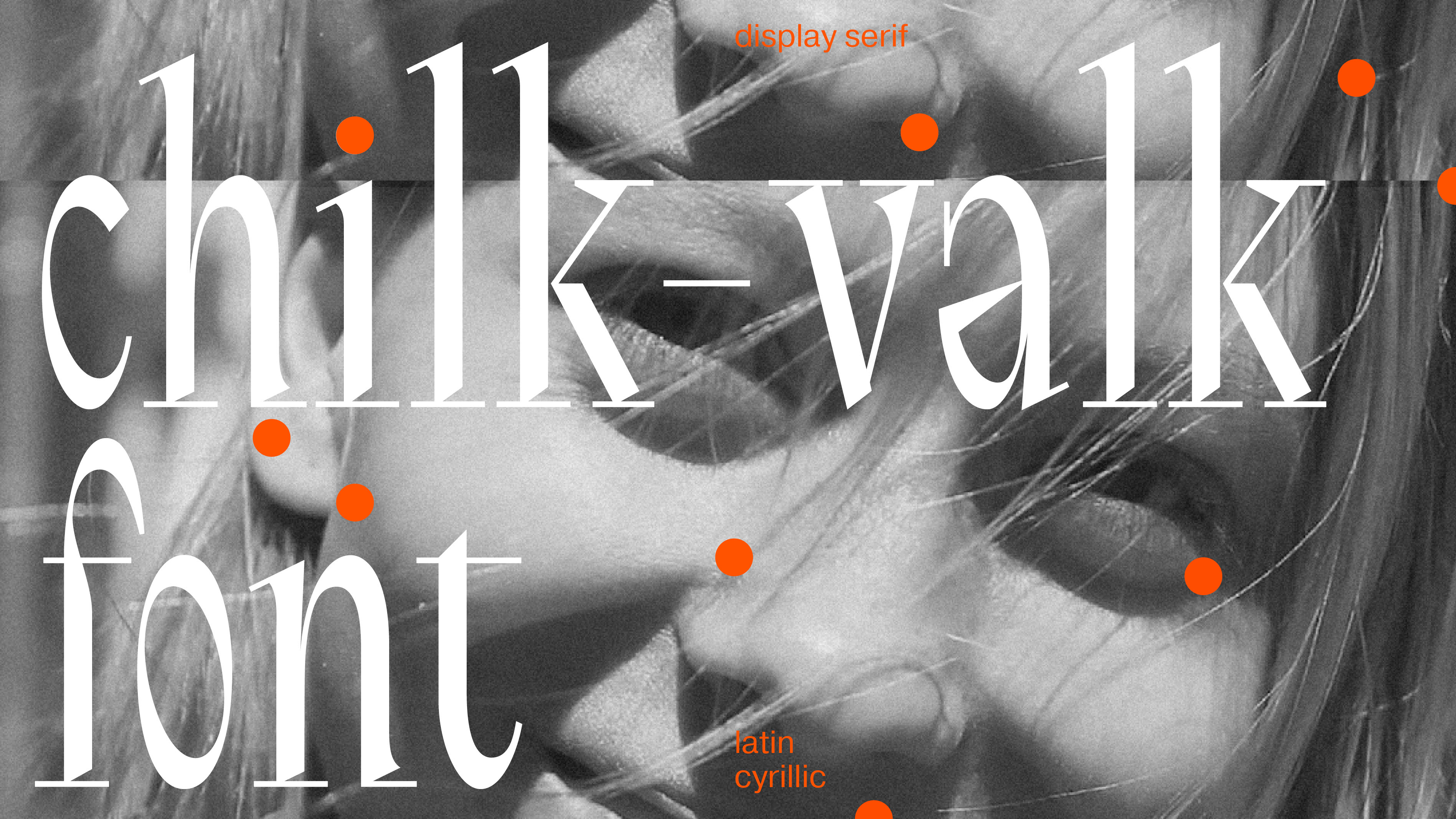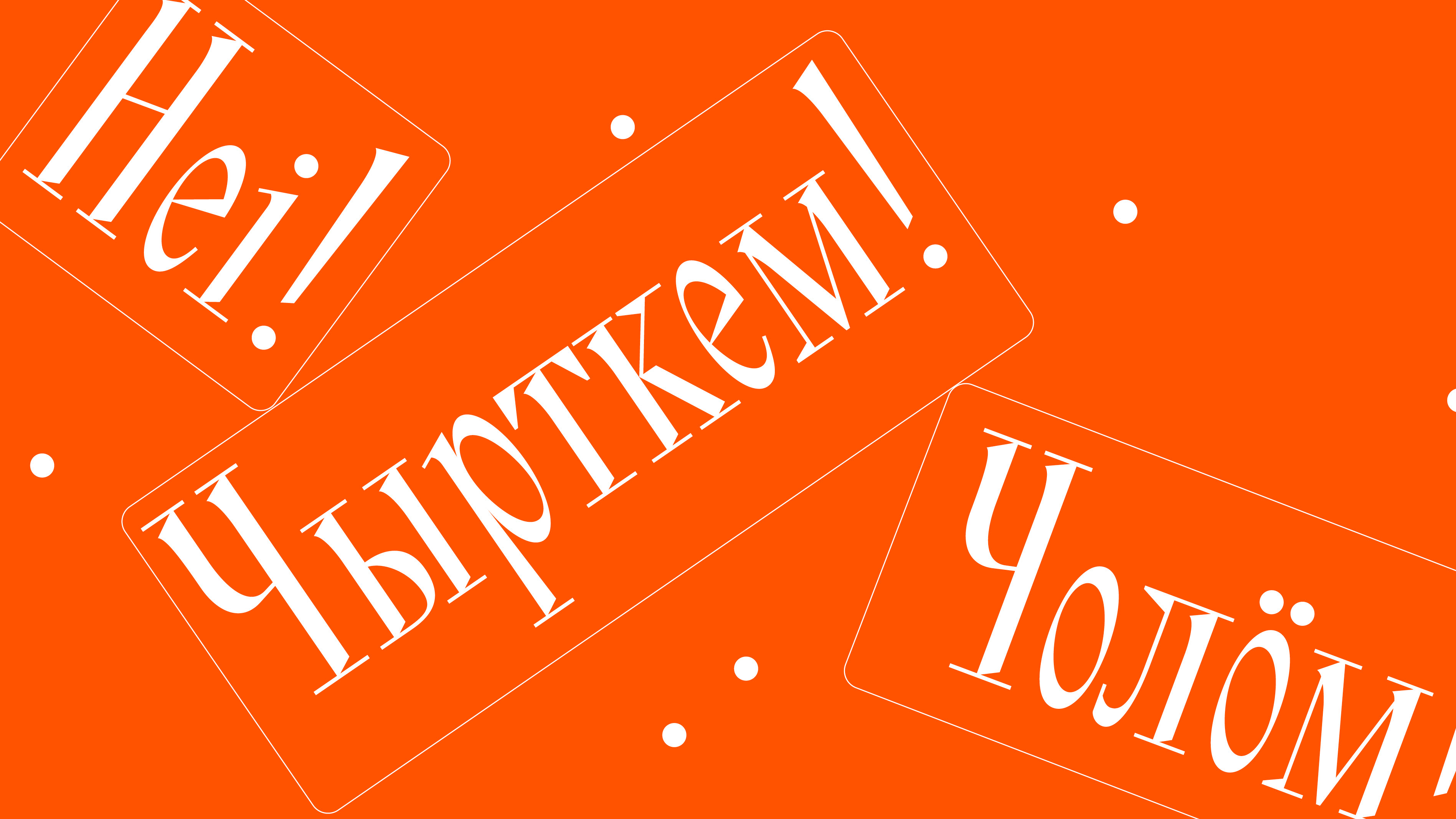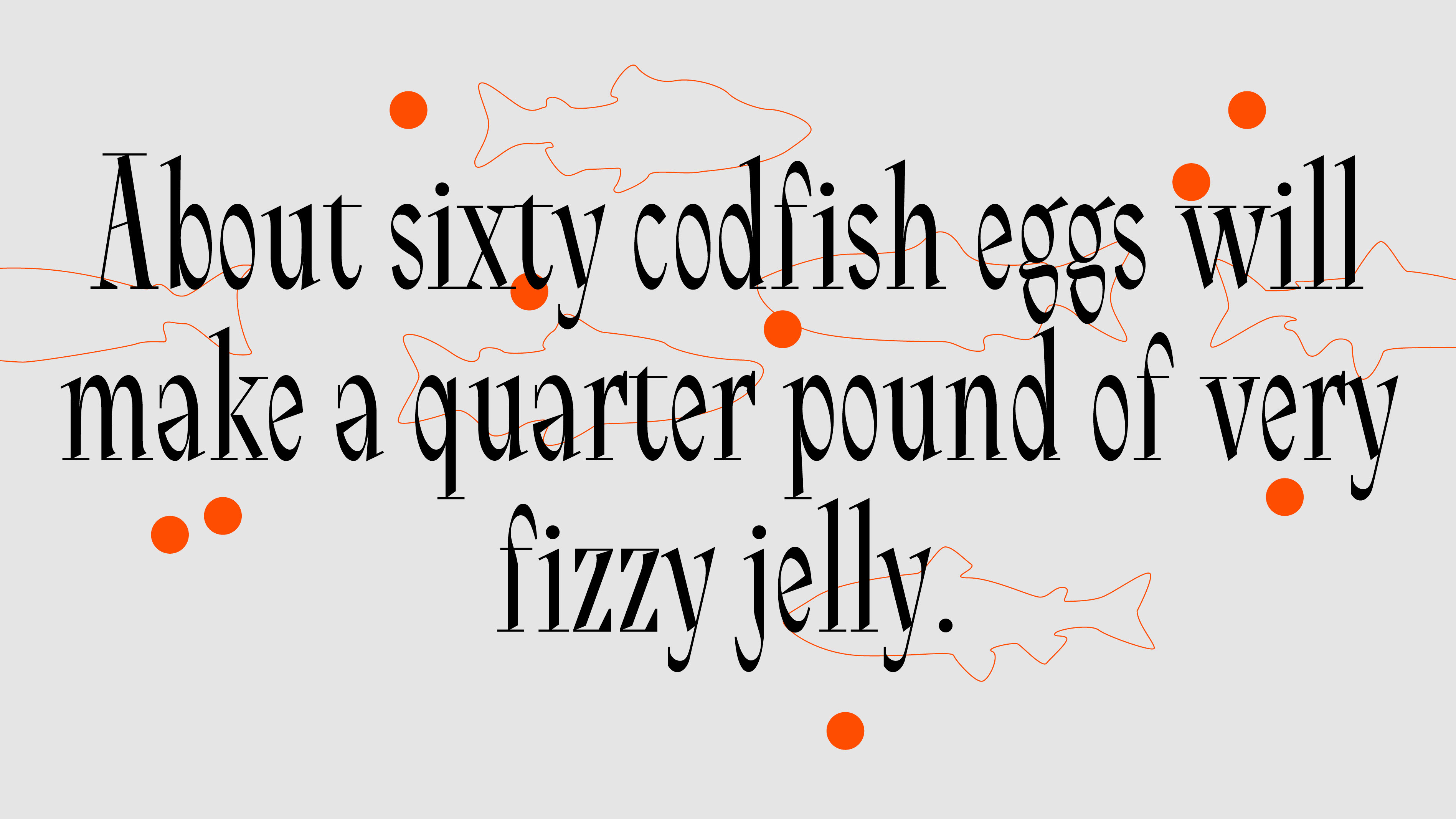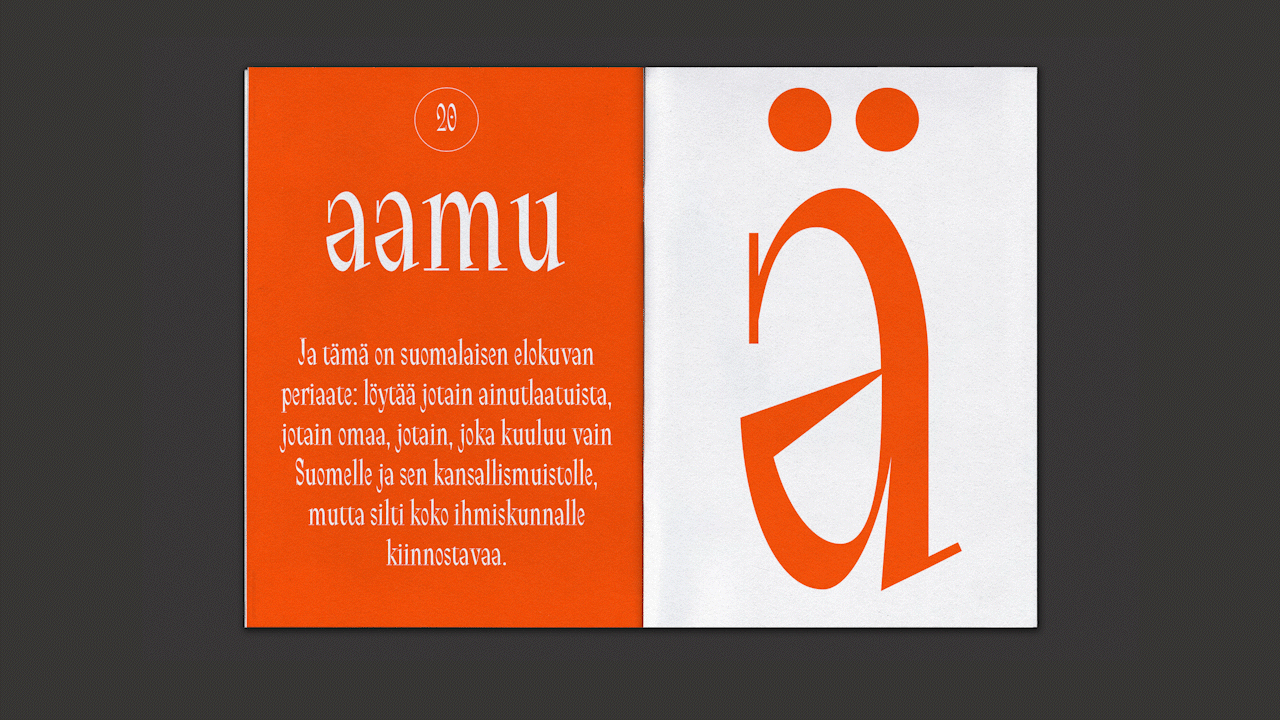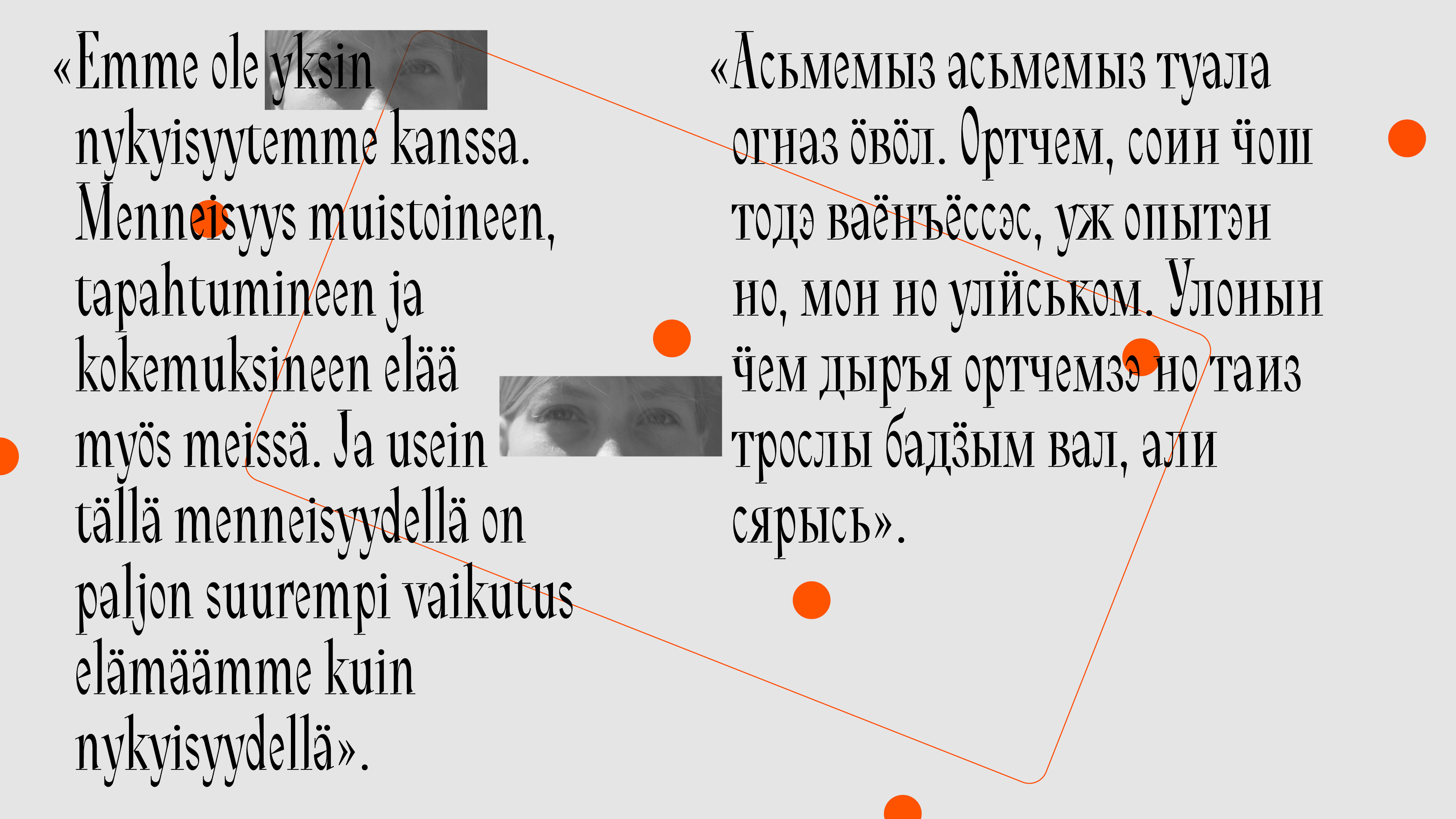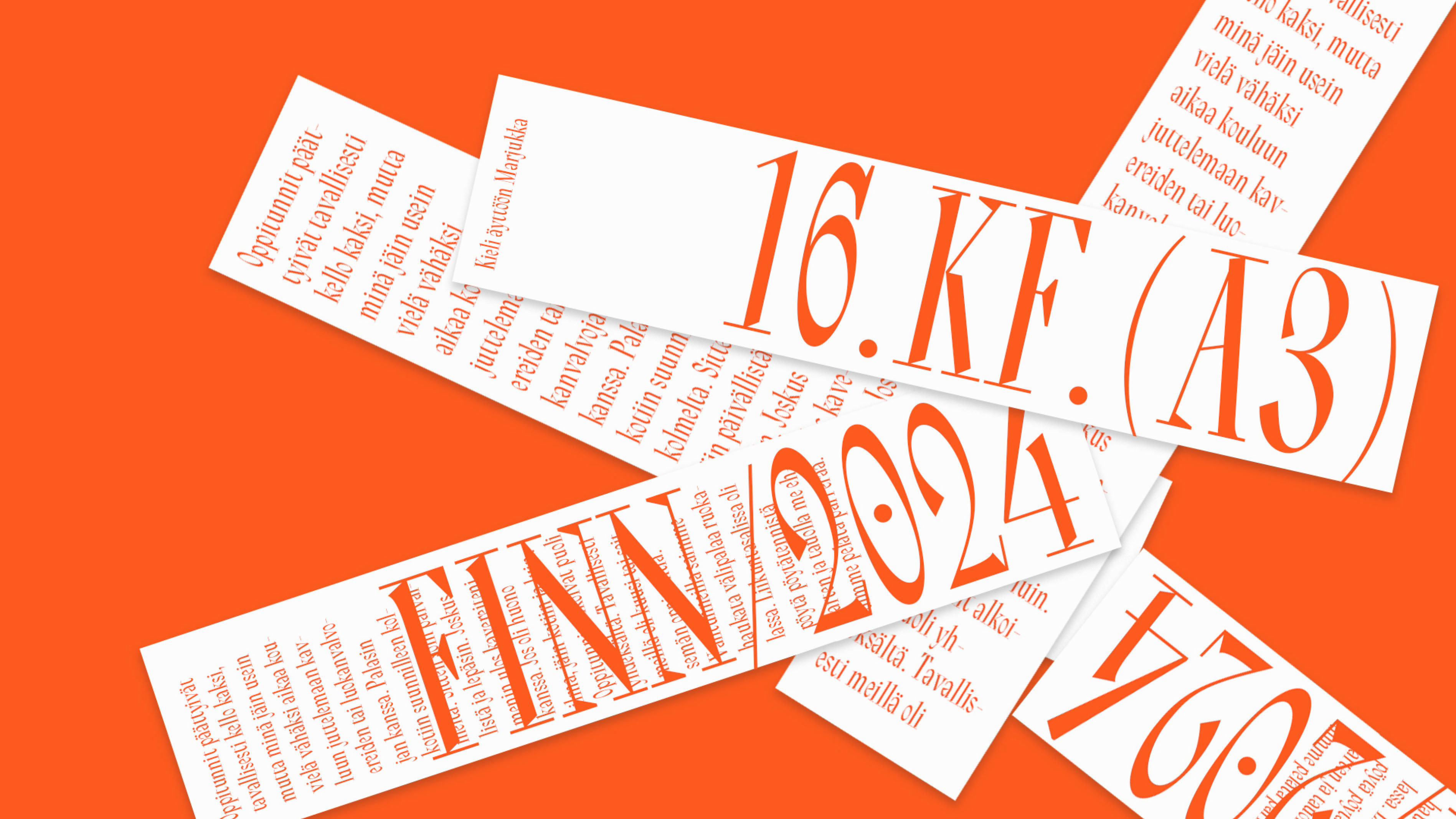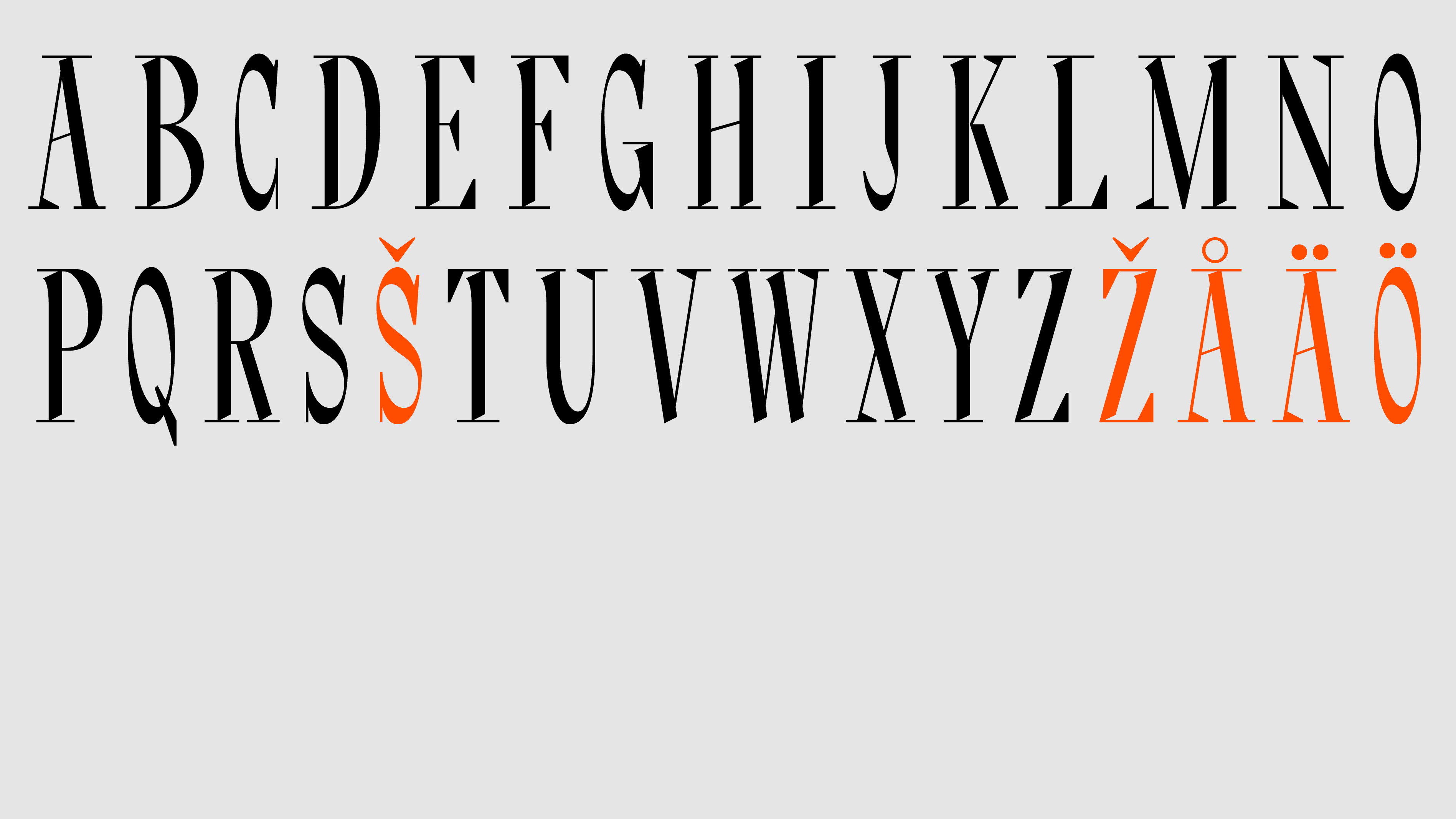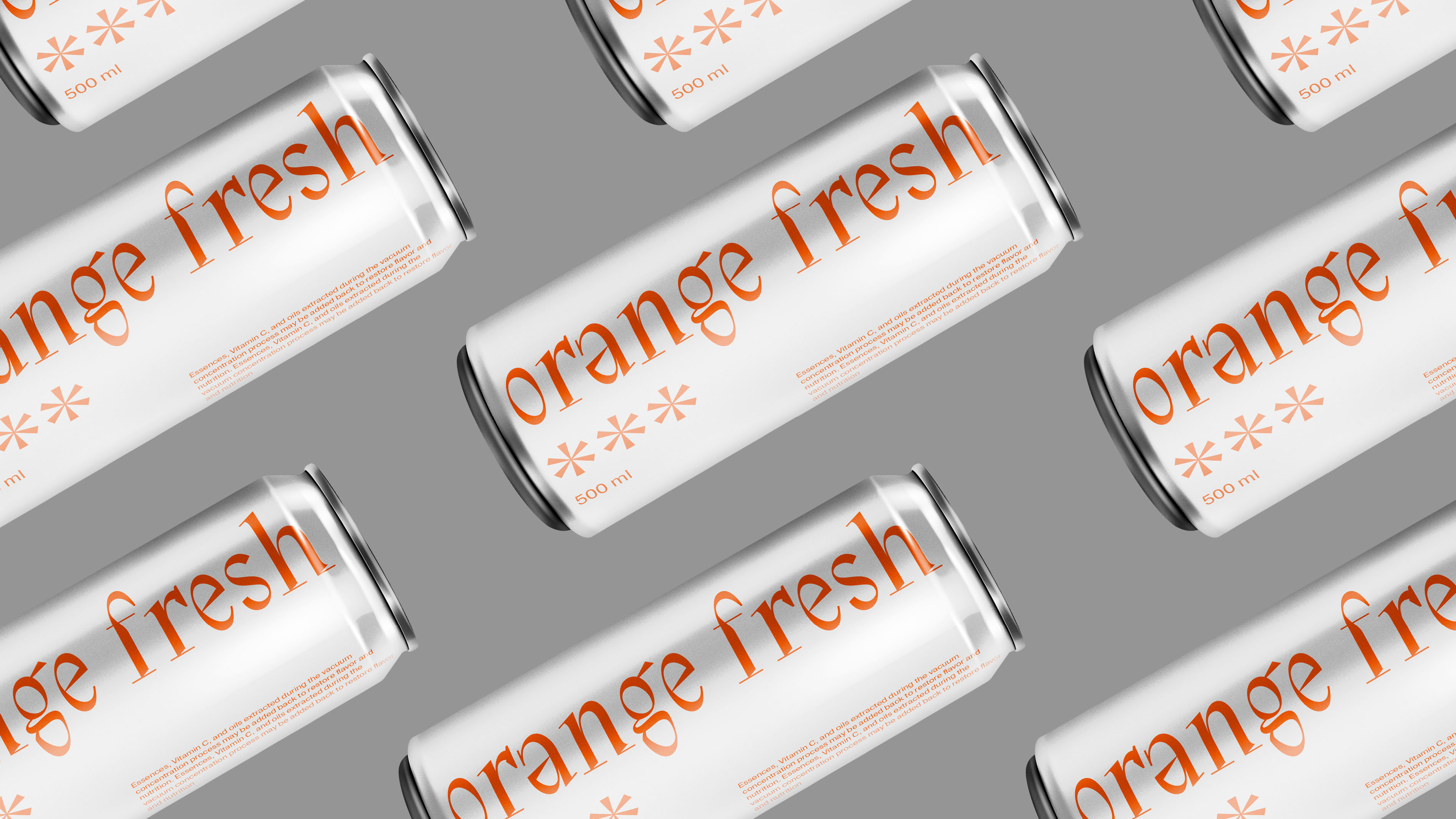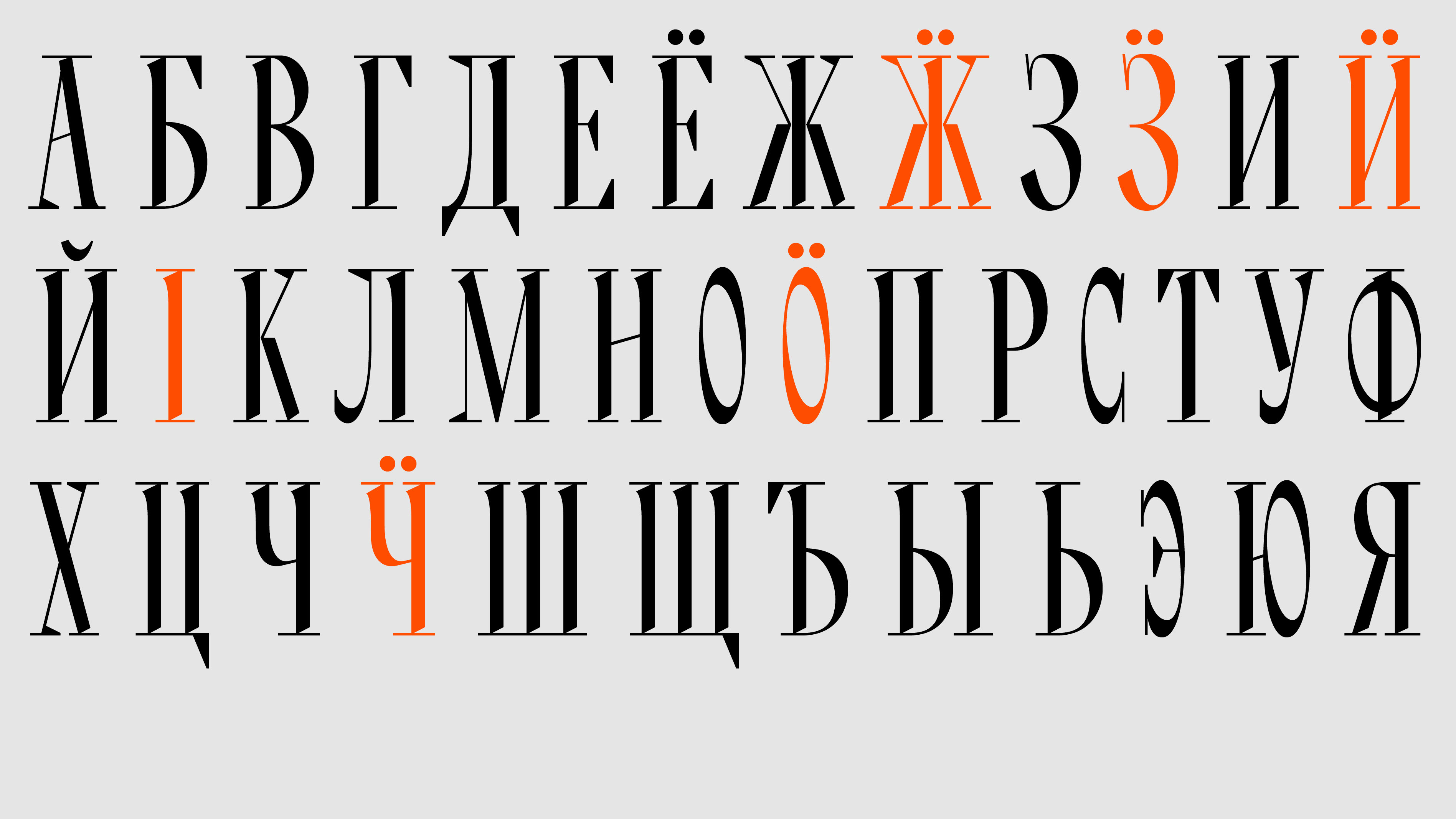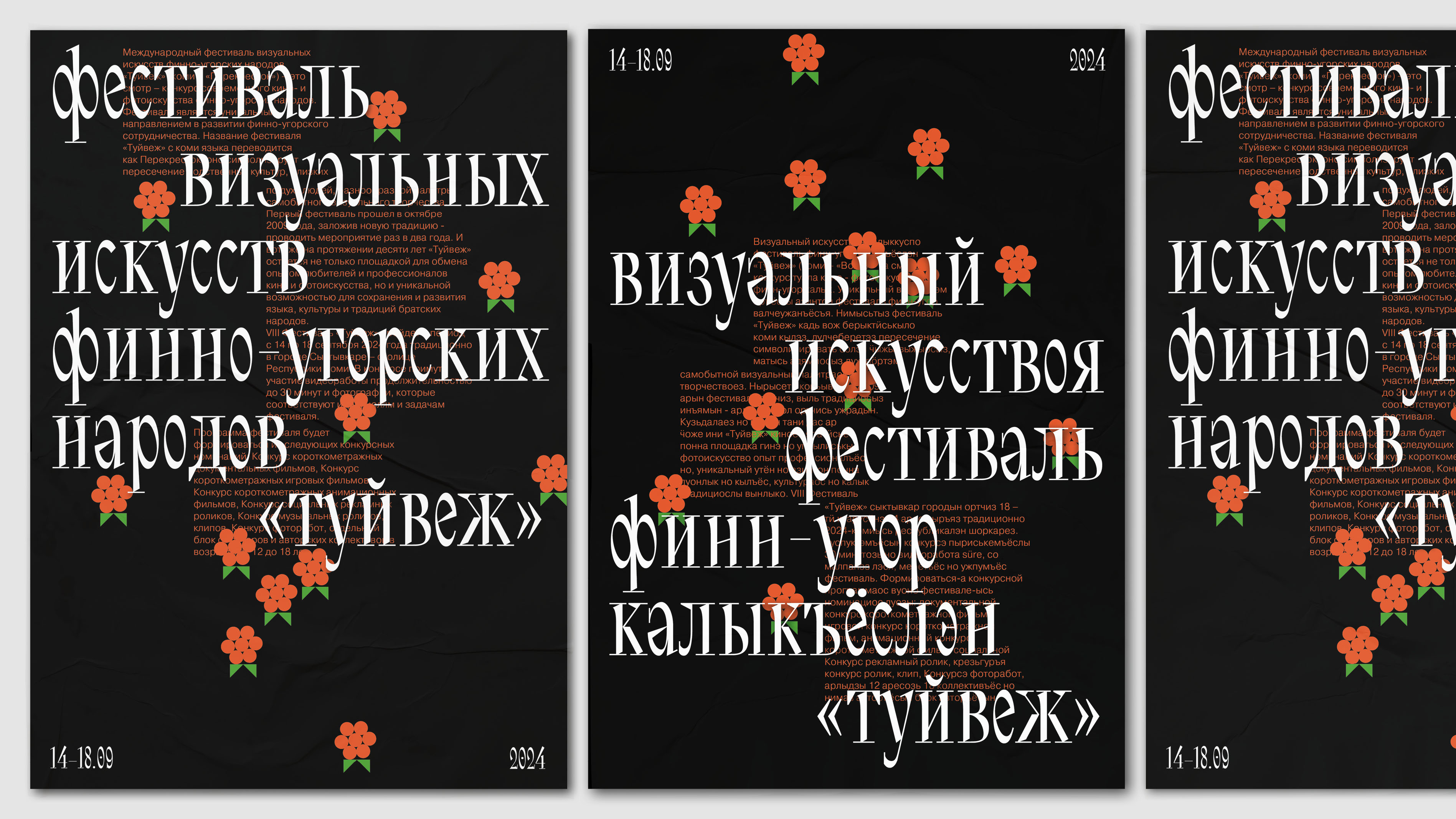
Chilk-valk font
Chilk-valk is an accent font inspired by frosty Finnish mornings and taiga forests. Thanks to the slices near the serifs, it creates a shimmer in the typeface and is good in large and medium sizes because of its decorative nature. Supports Latin alphabet - including Finnish, Cyrillic alphabet - including Udmurtian and Komi languages.